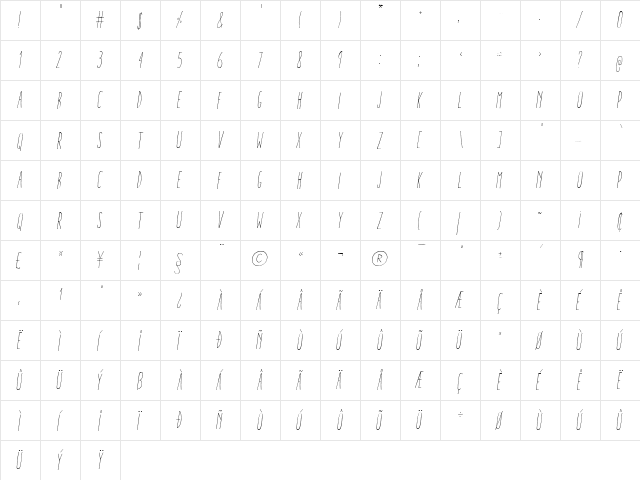
Aracne Ultra Condensed Light Italic Ultra-condensed Light Italic
Ultra-condensed Light Italic · Julia Martinez Diana, Antipixel. Julia Martinez Diana, Antipixel ·
Design Context for Aracne Ultra Condensed Light Italic Typeface
Aracne Ultra Condensed Light Italic is a composed and adaptable typeface that performs quietly and consistently across a wide range of design contexts. The dynamic lean of this cut emphasises speed and emphasis in any layout. Its slender proportions lend an understated elegance to any composition. The condensed width makes it efficient for tight spaces without sacrificing legibility.
Pro Tip: Try Aracne Ultra Condensed Light Italic for annotation and caption copy alongside an upright companion — the contrast in angle creates a dynamic but ordered typographic system.